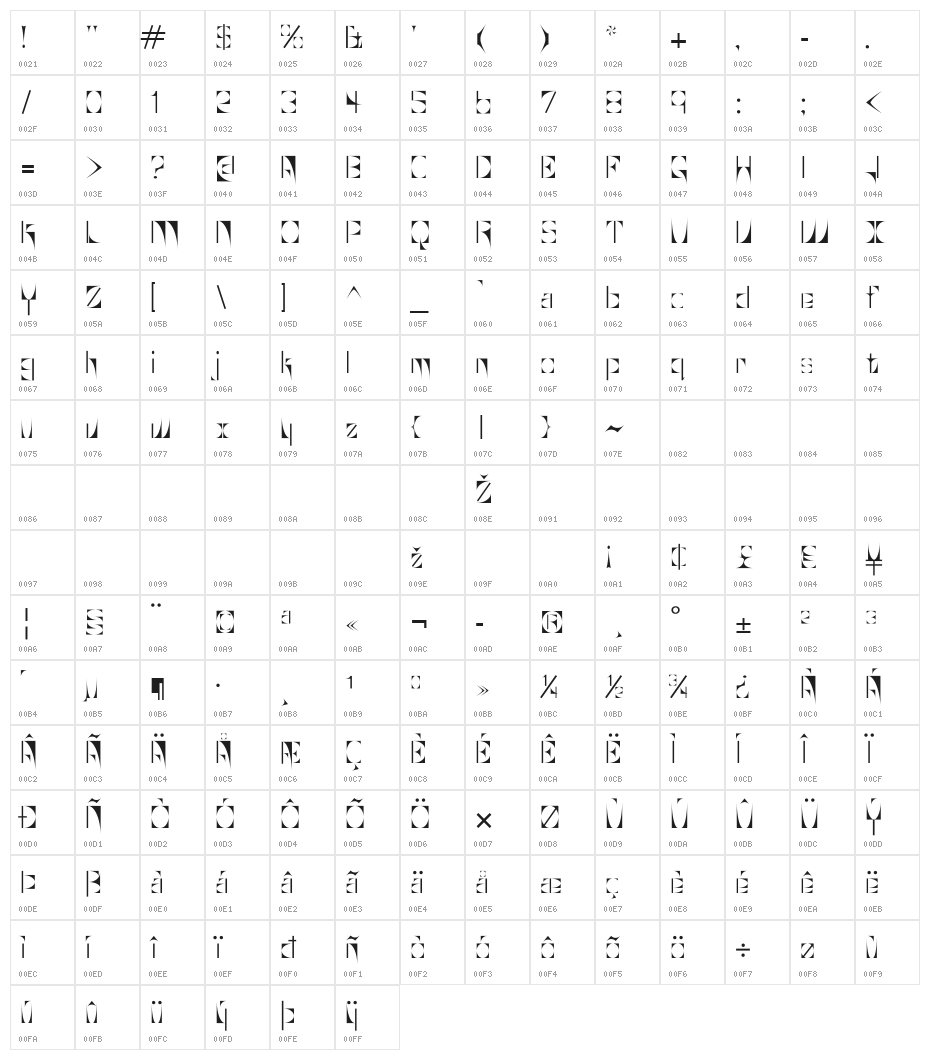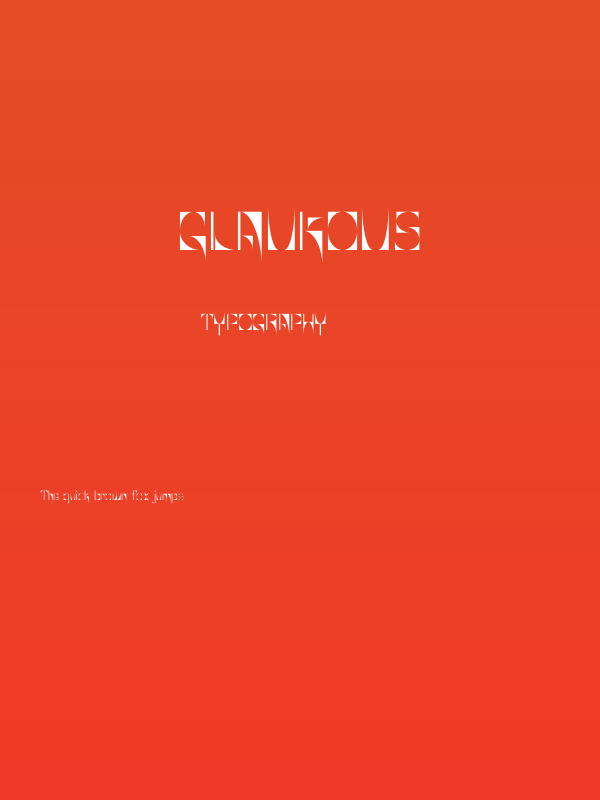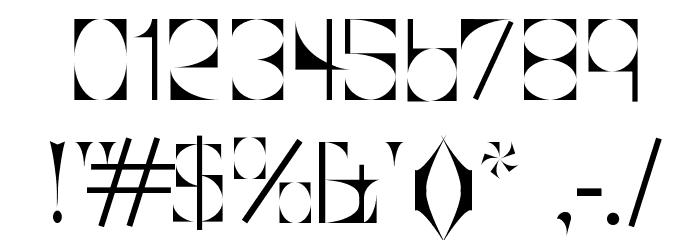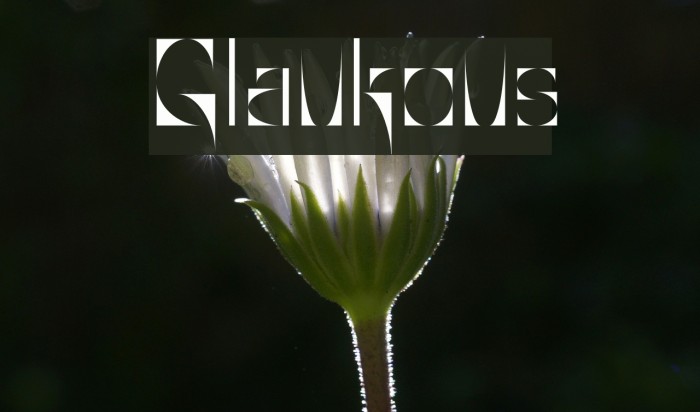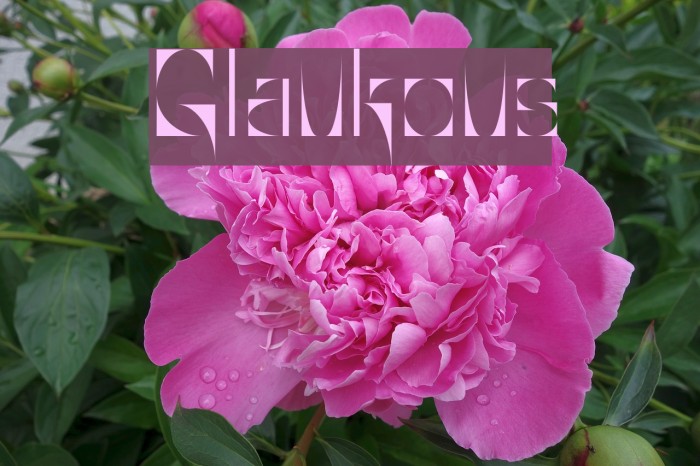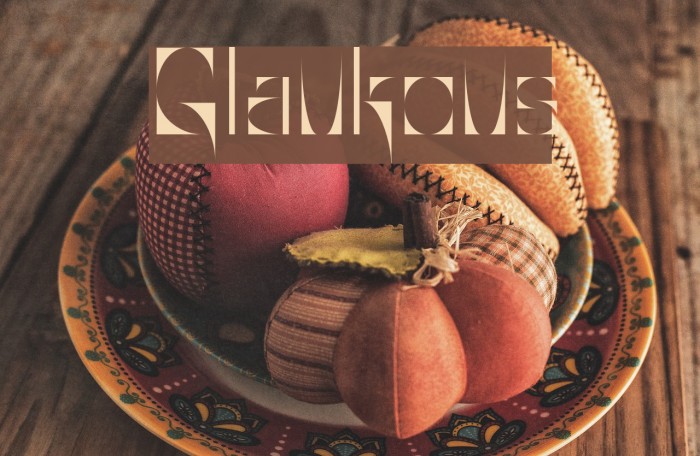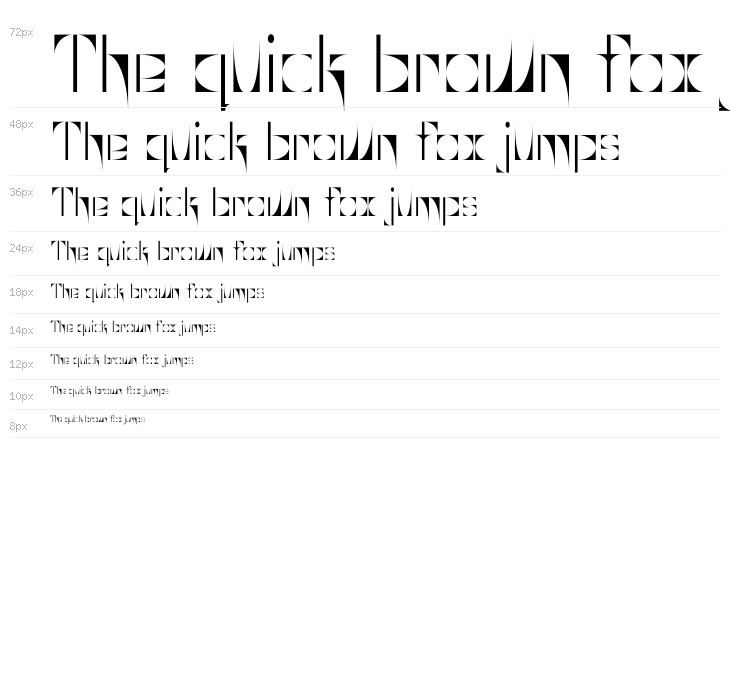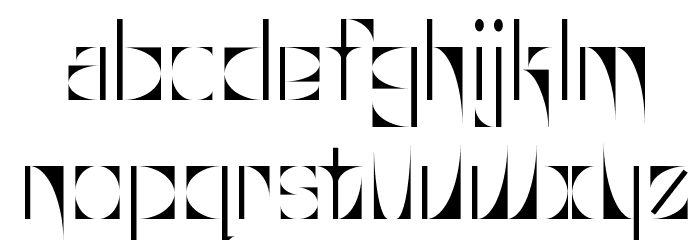
Glaukous Font
Glaukous Description
This font features a highly stylized, geometric design with sharp angles and dramatic contrasts between thick and thin strokes. The characters are constructed with a modern, artistic flair, incorporating triangular and circular elements that create a sense of movement and dynamism. The uppercase and lowercase letters maintain a consistent aesthetic, while the numerals and special characters echo the same bold, avant-garde style. Its unique appearance makes it stand out, offering a visually striking option for creative projects.
| Proposed Projects | Ideal for branding, posters, album covers, and fashion-related designs. |